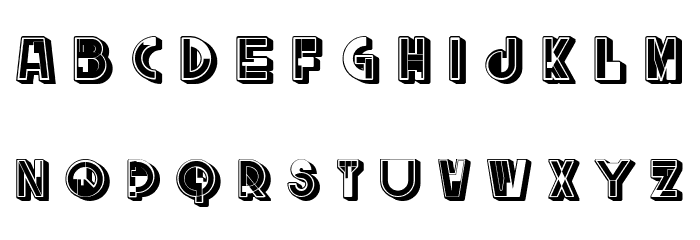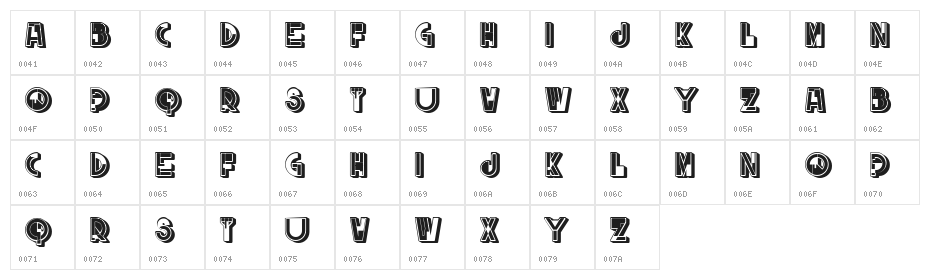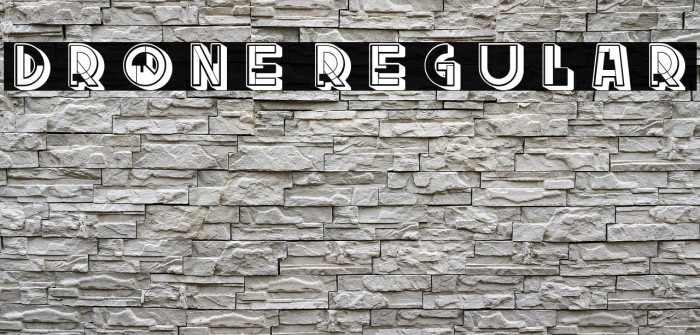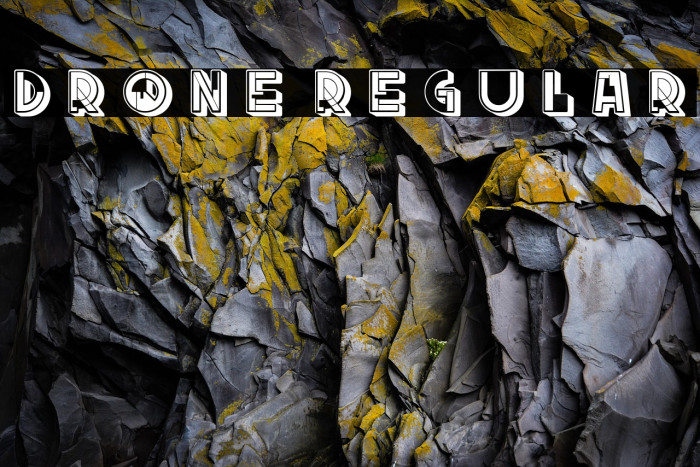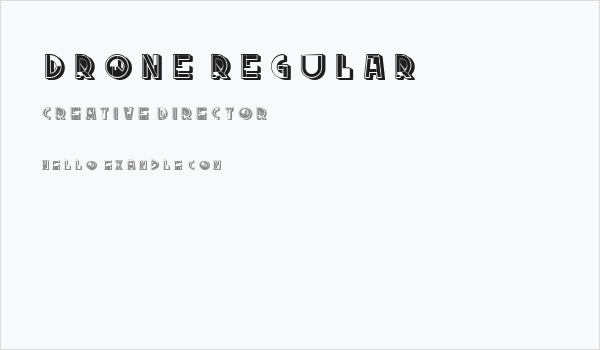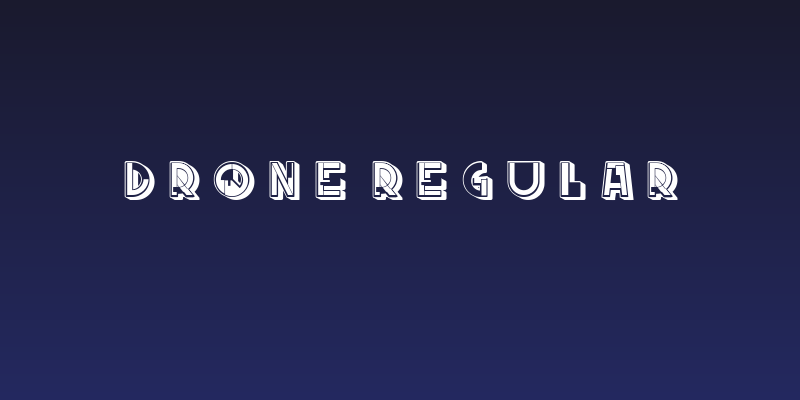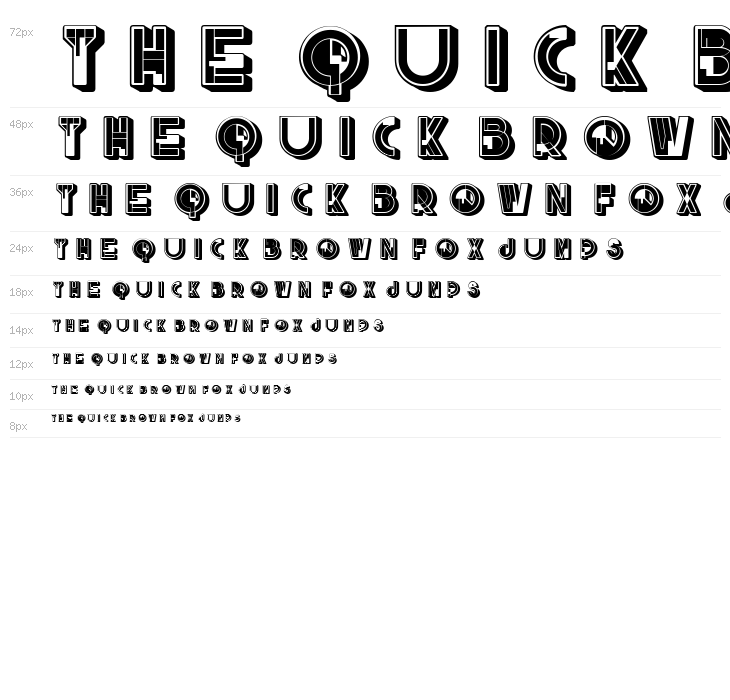
Drone Regular Font
This font features a bold, geometric design with a distinct three-dimensional effect. Each character is crafted with a solid, block-like structure, giving it a strong and impactful presence. The letters are outlined with a thick black border, enhancing the 3D illusion and adding depth. The interior of the characters is filled with a white space, creating a striking contrast against the dark outlines. The font's style is modern and futuristic, making it ideal for projects that require a bold and eye-catching typeface. Its unique design elements make it suitable for creative and innovative applications.
A bold, geometric font with a 3D effect and strong visual impact.
- Font: Drone Regular